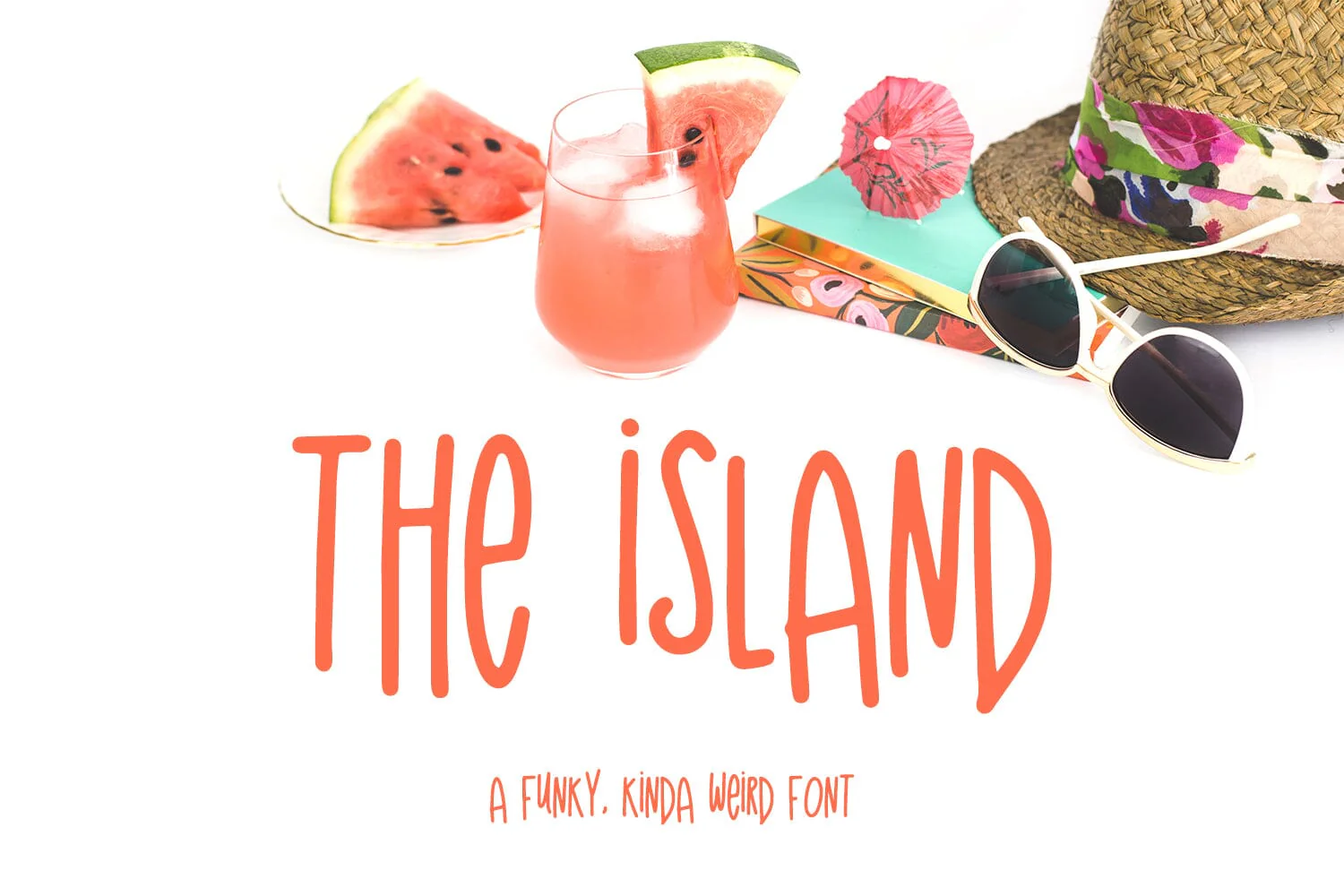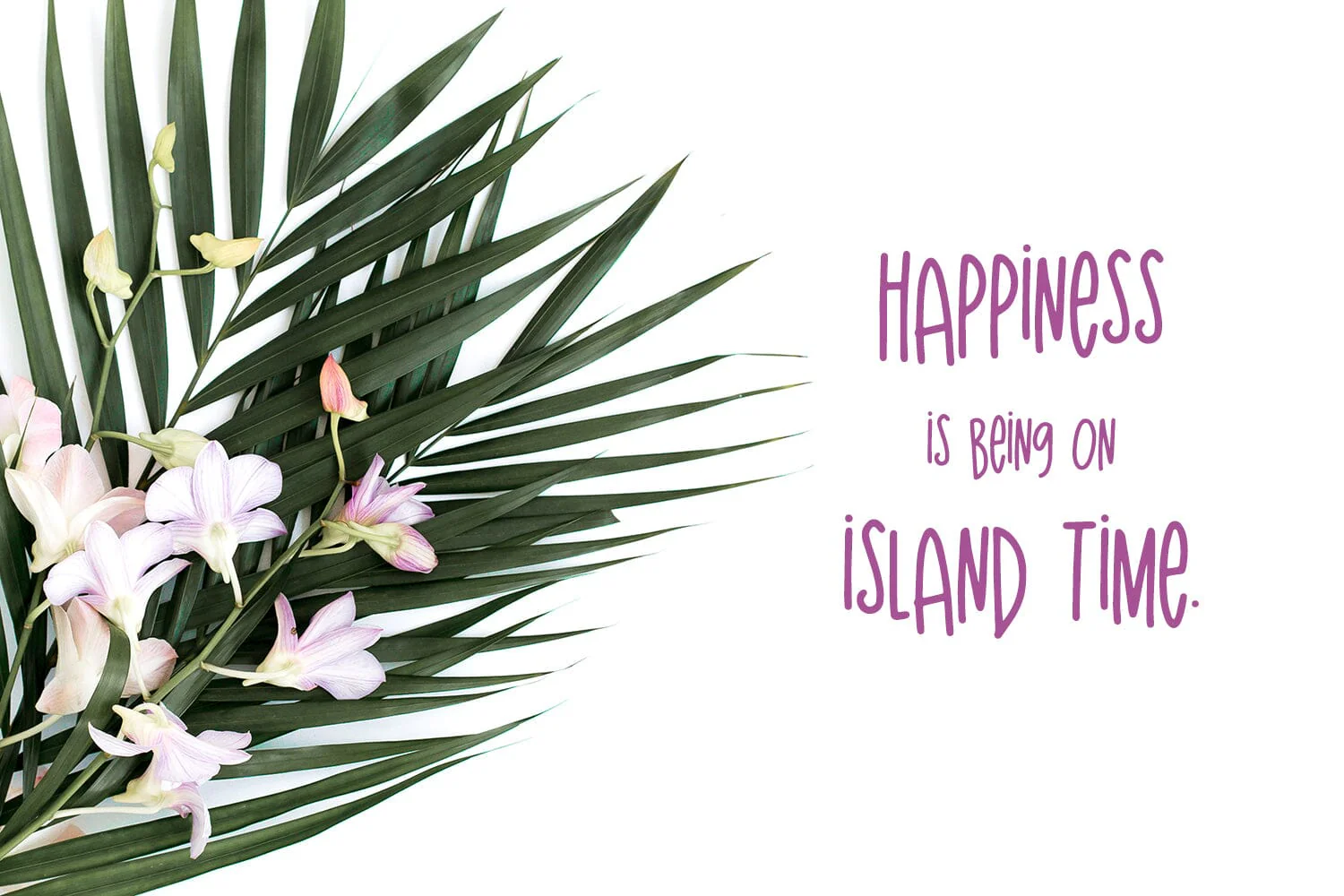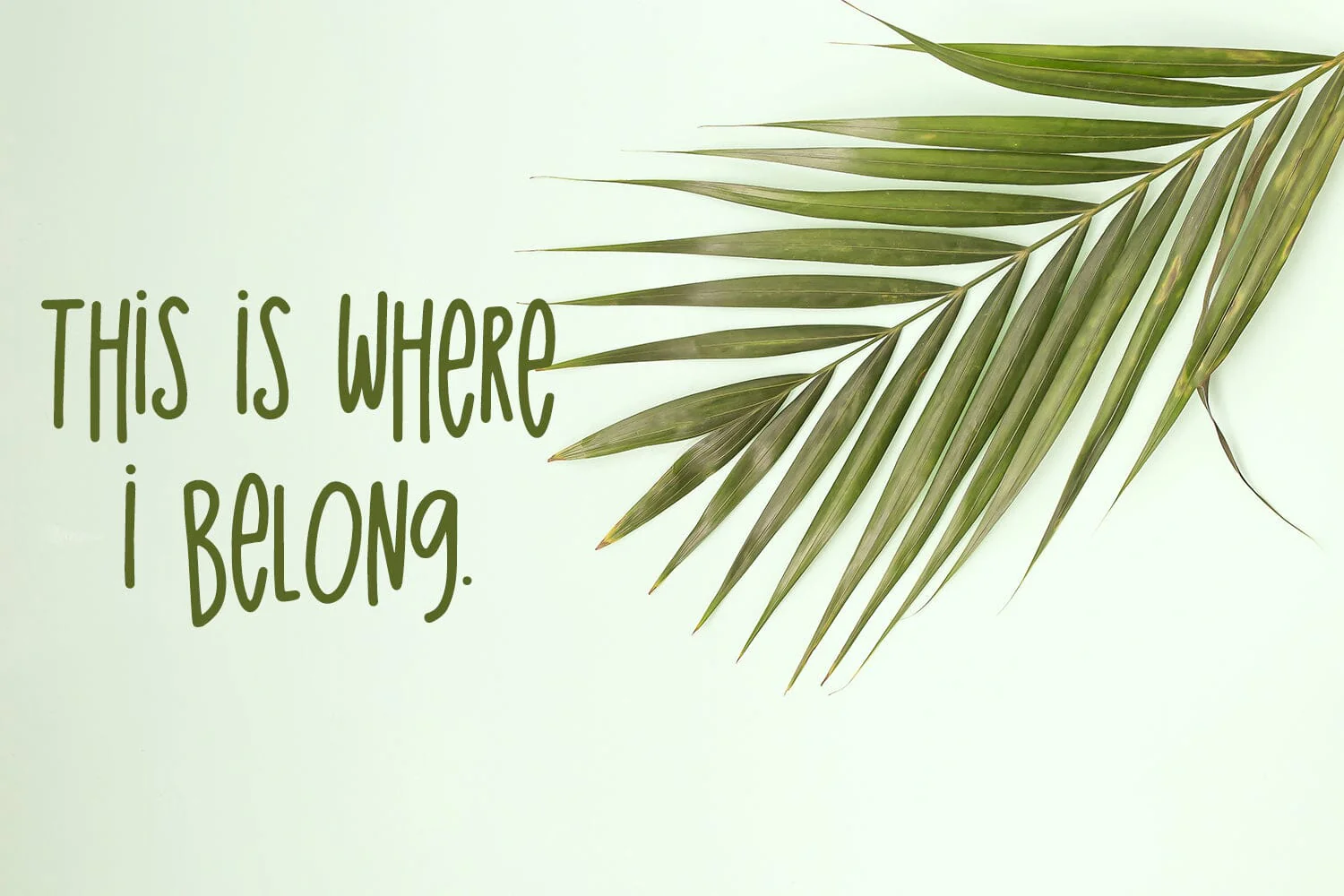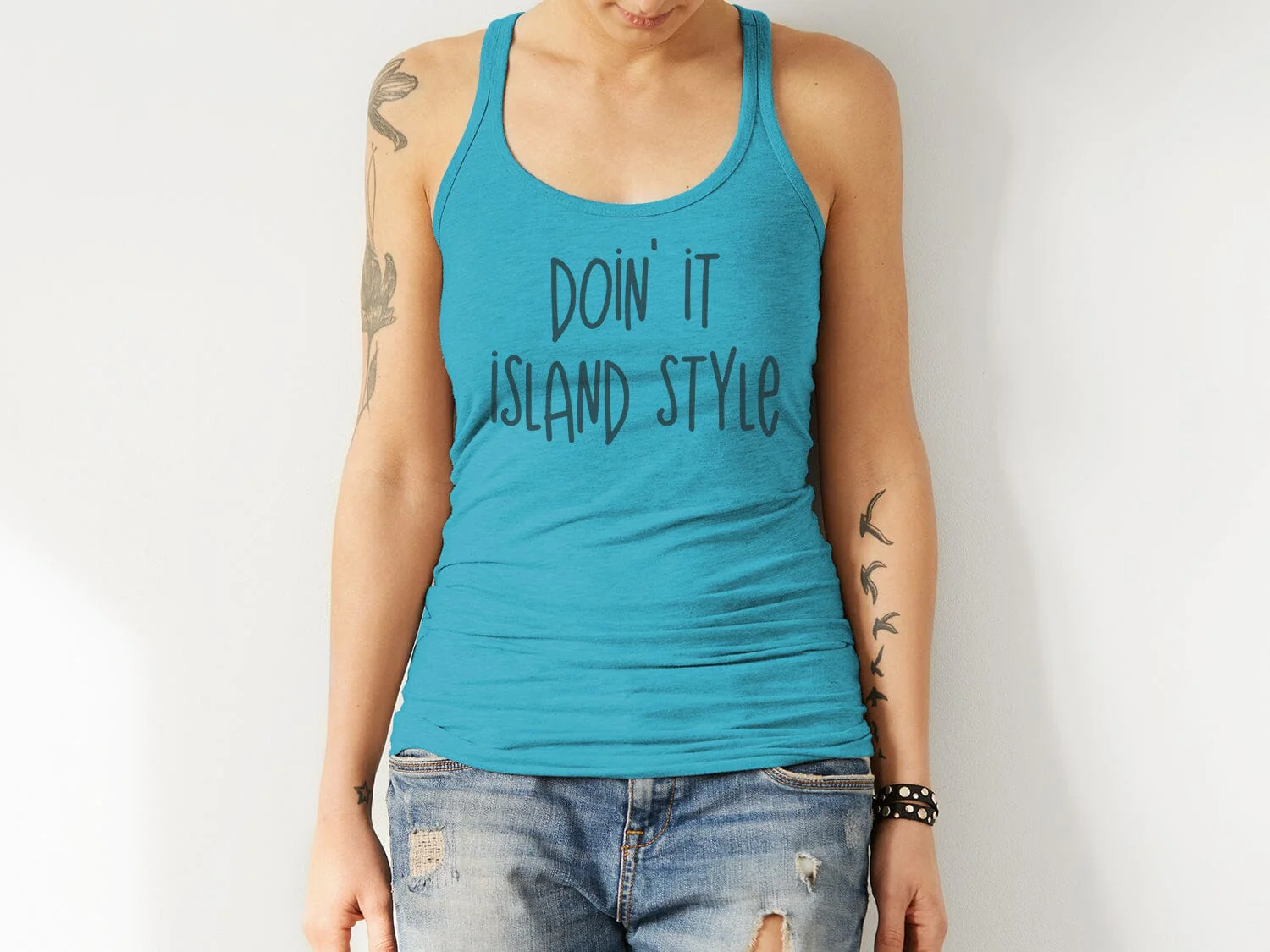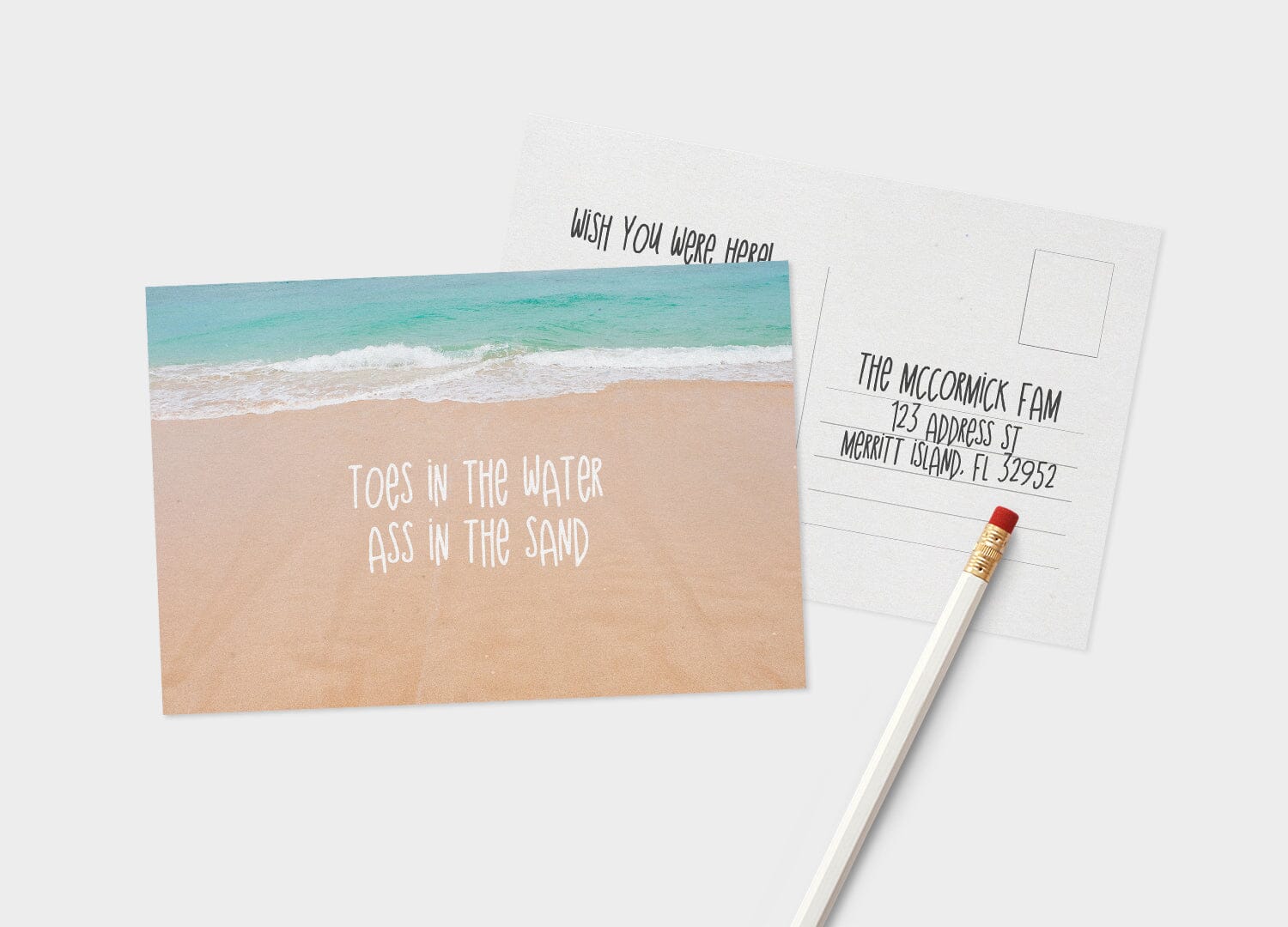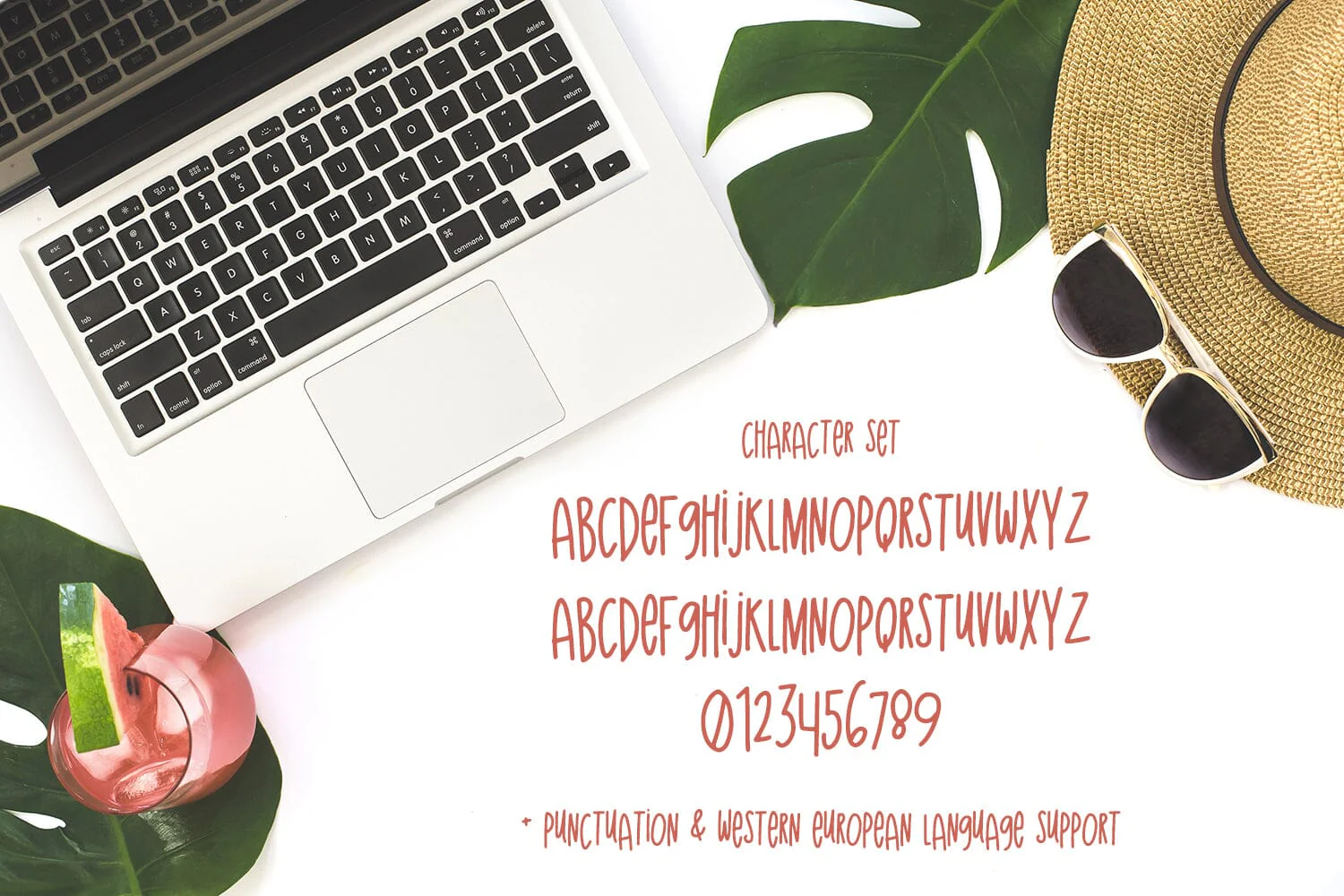
The Island Sans Font
The Island is a funky, kinda weird font with a varied baseline and a mixture of caps & lowercase. The Island is perfect for t-shirts & other products, as well as giving a funky edge to a casual coastal brand.
The caps & lowercase letters are the same in The Island, but programmed for your convenience so your system doesn’t make an icky replacement. The Island also features Western European language support.
The Island is a funky, kinda weird font with a varied baseline and a mixture of caps & lowercase. The Island is perfect for t-shirts & other products, as well as giving a funky edge to a casual coastal brand.
The caps & lowercase letters are the same in The Island, but programmed for your convenience so your system doesn’t make an icky replacement. The Island also features Western European language support.